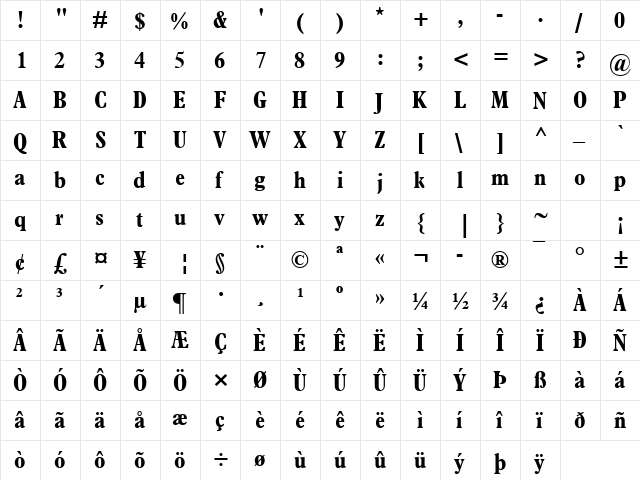
Plantin MT Bold Condensed Regular
| Foundry | Agfa Monotype Corporation |
Design Context for Plantin MT Bold Condensed Typeface
Plantin MT Bold Condensed is a composed and adaptable typeface that performs quietly and consistently across a wide range of design contexts. Its bold stroke weight gives it real presence on the page. Its narrow stance lets it pack a punch even in space-constrained designs.